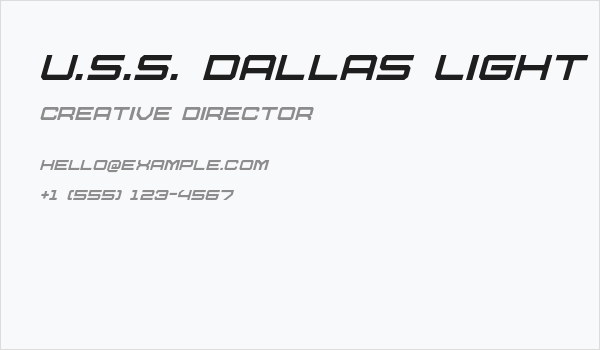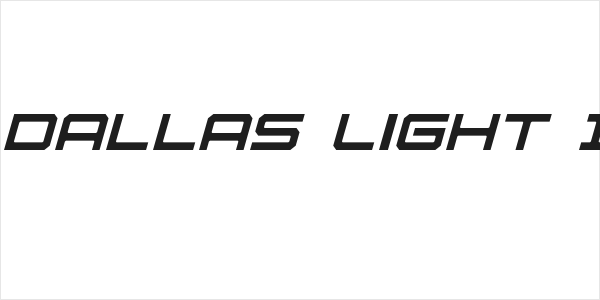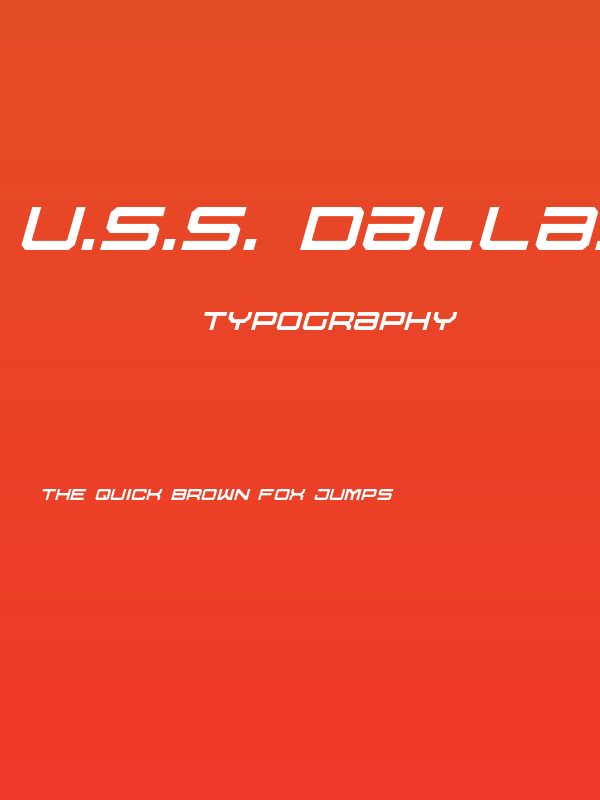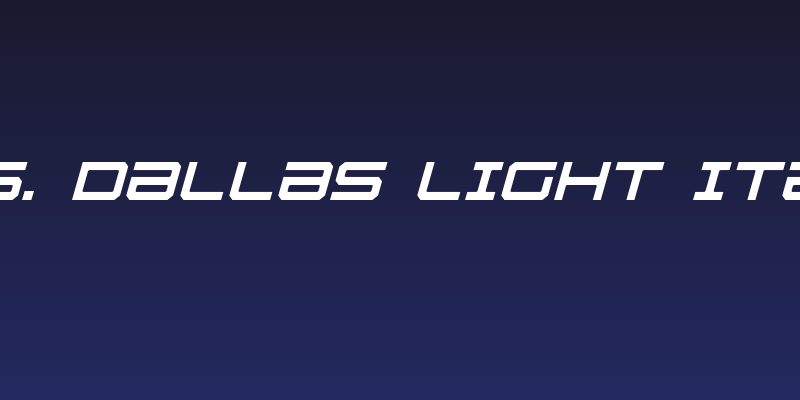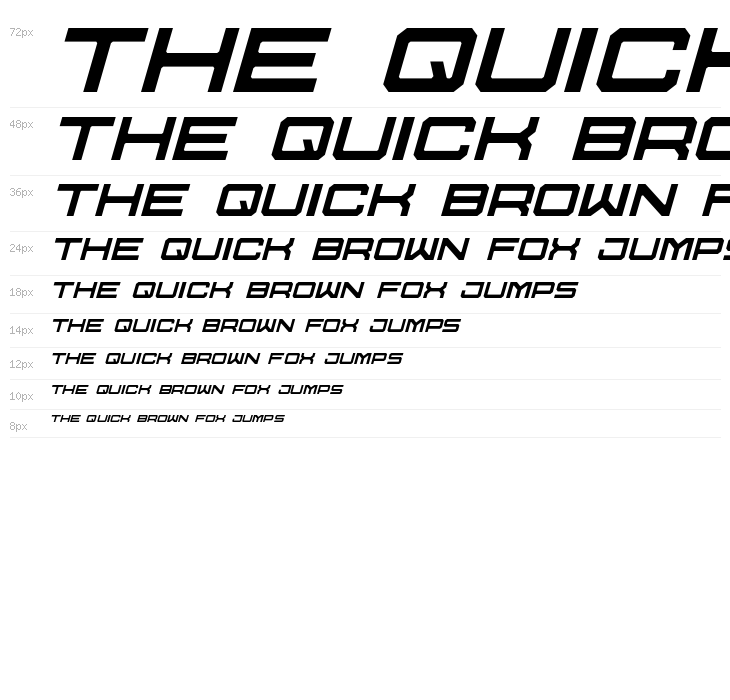
U.S.S. Dallas Light Italic Font
U.S.S. Dallas Light Italic Description
This font features a sleek, futuristic design with a strong emphasis on angular lines and geometric shapes. The characters are slightly italicized, giving a sense of motion and speed. The uppercase and lowercase letters maintain a consistent style, with sharp edges and a uniform stroke width that suggests a modern, technical aesthetic. The numerals and special characters are designed to match the overall theme, providing a cohesive look across all glyphs. The font's style is both bold and dynamic, making it suitable for projects that require a contemporary and cutting-edge appearance.
| Use Case | Logos, Headlines, Branding |
| Proposed Projects | Ideal for technology branding, sci-fi themed designs, video game interfaces, and modern advertising. |